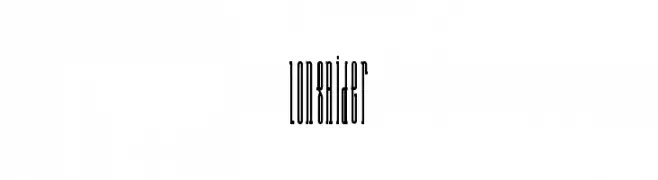
A tall, narrow font with consistent stroke width and a modern, vintage appeal.
A tall, narrow font with elongated vertical lines and minimal spacing.